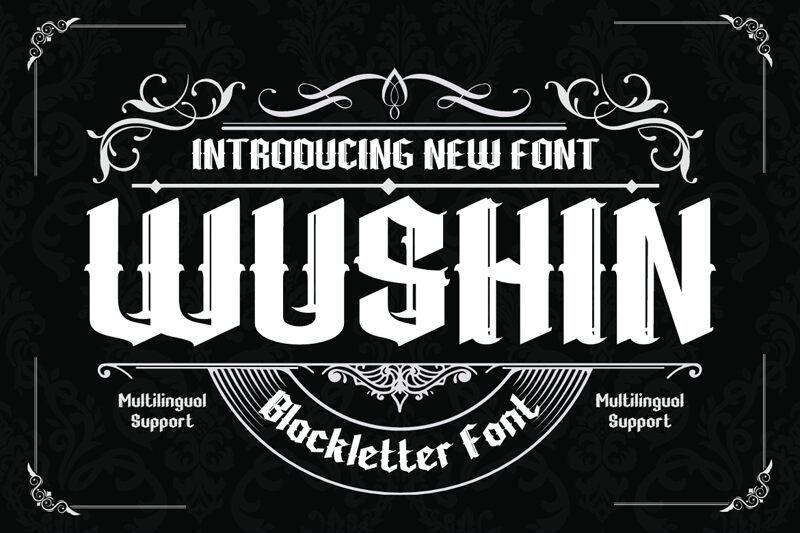
Every design project needs fonts, and the WUSHIN Blackletter font is ideal for any that calls for a gothic touch.
A great place to look for fonts for your most recent logo, label, badge, music video, or film is the WUSHIN Blackletter font! This modern gothic font with its bold weight and semi-condensed width adds a touch of elegance to any project. Whether you're designing a dark fantasy book cover, creating an edgy clothing brand logo, or crafting an atmospheric movie title sequence, the WUSHIN Blackletter font will help you bring your vision to life.
Its various lovely and harmonious shapes let you select the perfect word for your project.
WUSHIN